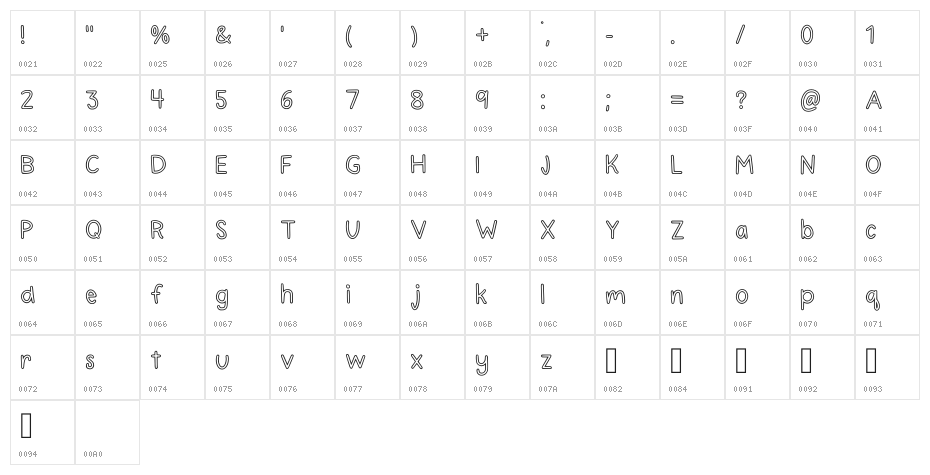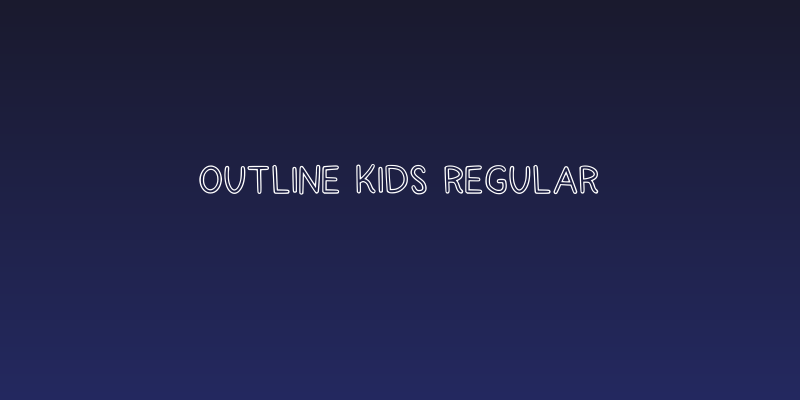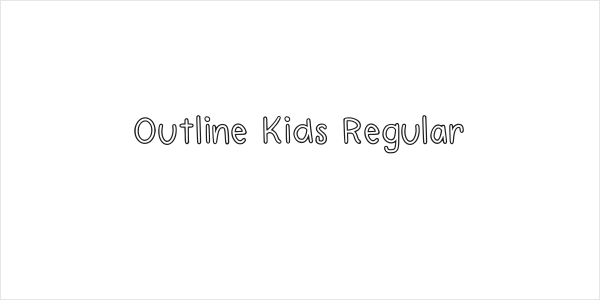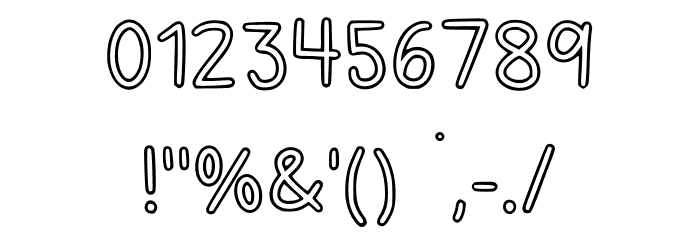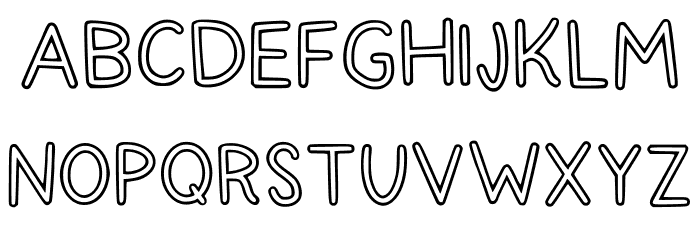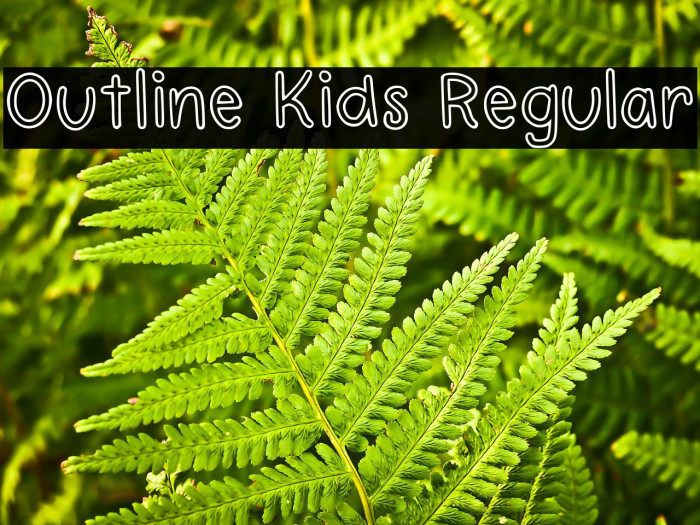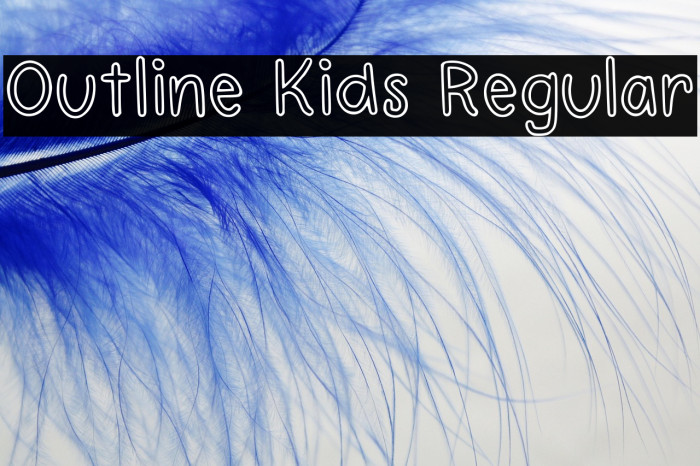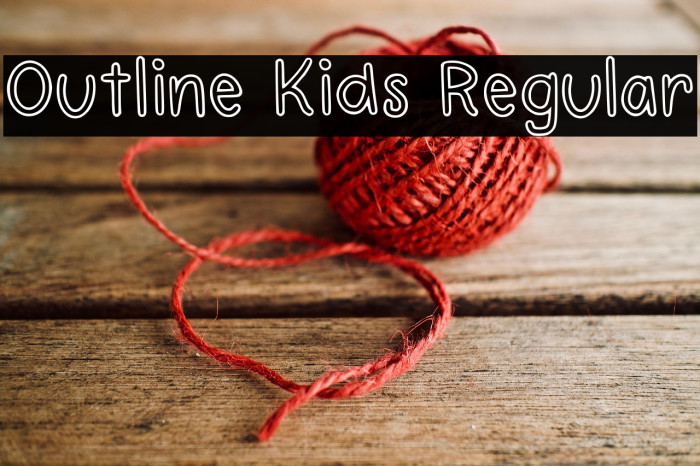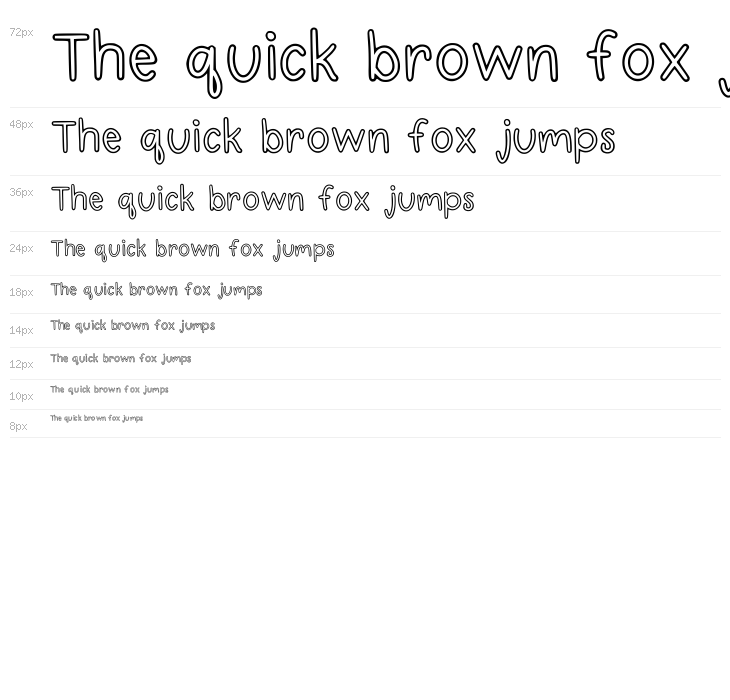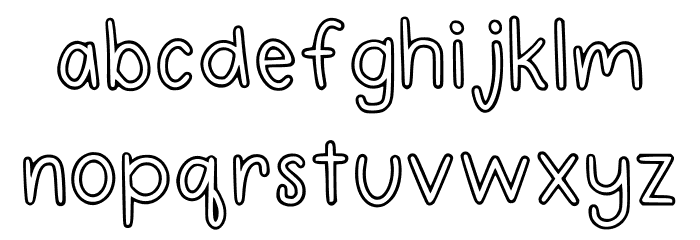
Outline Kids Regular Font
Outline Kids Regular Description
This playful and whimsical font features an outline style that gives it a light and airy appearance. The characters are rounded and slightly irregular, adding a hand-drawn feel that is both approachable and friendly. The uppercase and lowercase letters maintain a consistent style, with smooth curves and a casual flow. Numbers and special characters are designed to match the overall aesthetic, ensuring a cohesive look across all text elements. The font's simplicity and charm make it ideal for projects aimed at children or those seeking a fun and informal vibe.
| Proposed Projects | Ideal for children's books, educational materials, playful branding, and creative projects that require a lighthearted touch. |